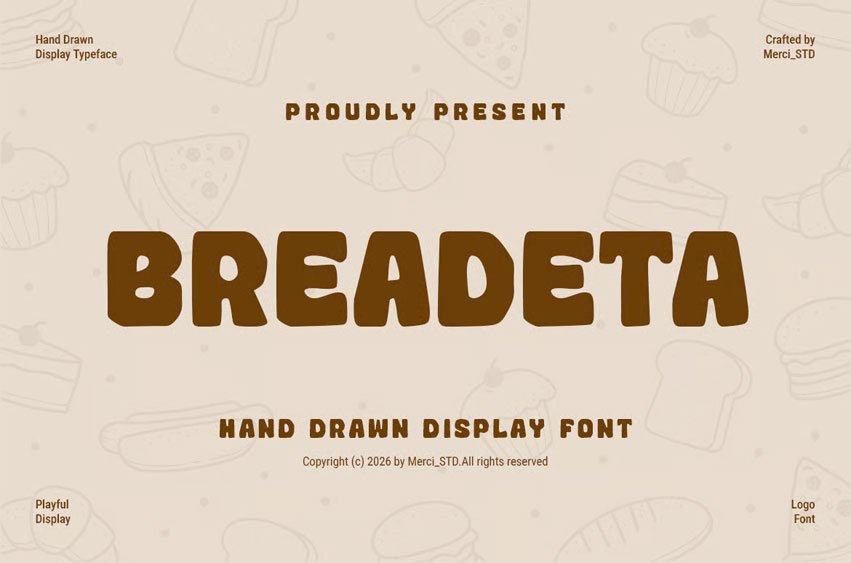
Breadeta Font
Breadeta Font is a hand drawn playful display font with soft organic shapes.
Perfect for food branding, kids design, packaging, and friendly visual projects.
• Unique Hand-Drawn Style